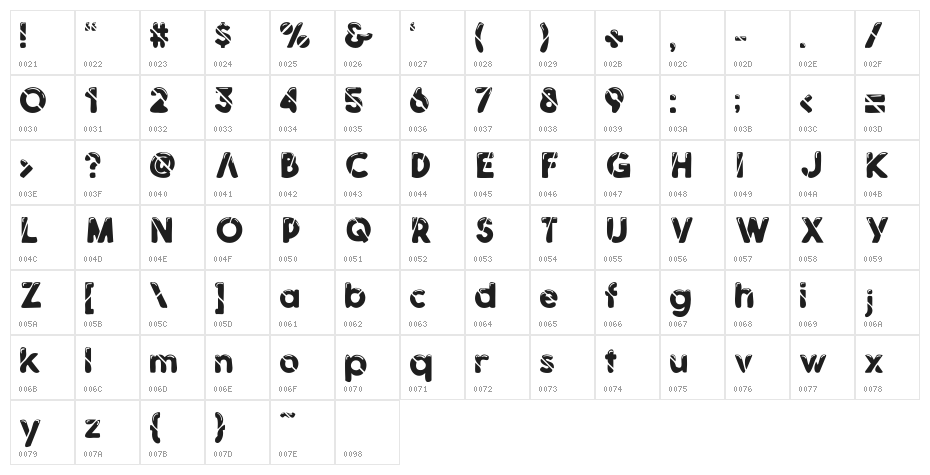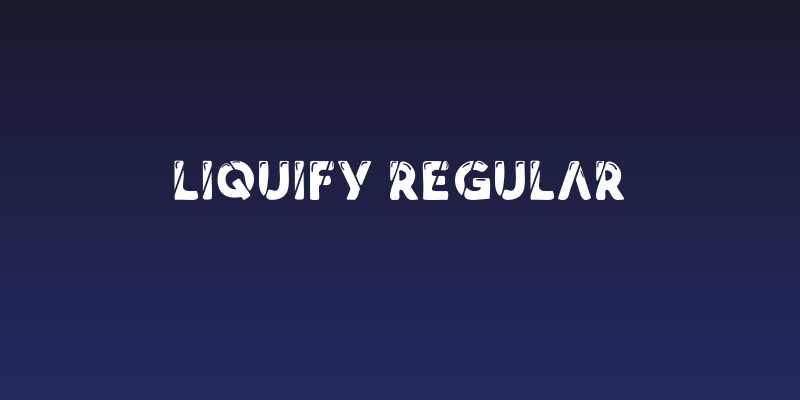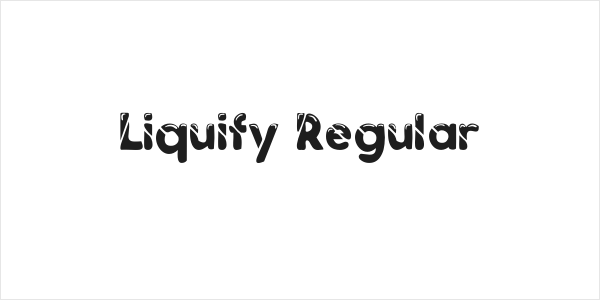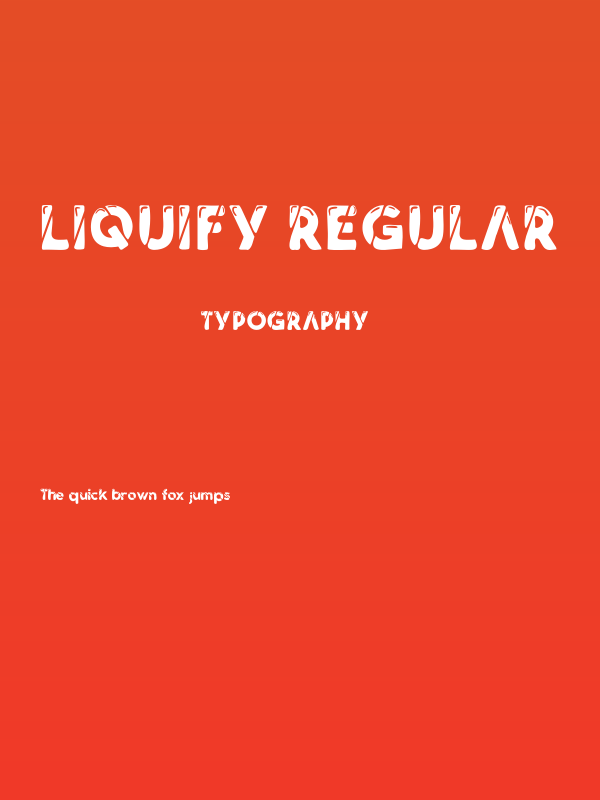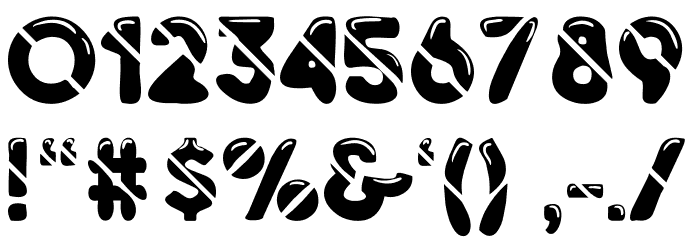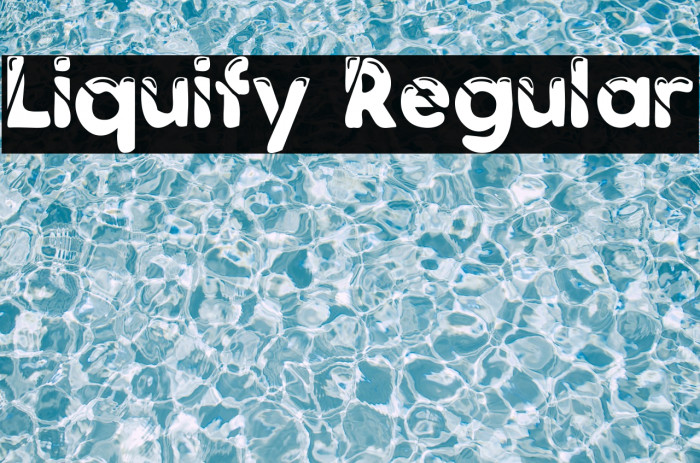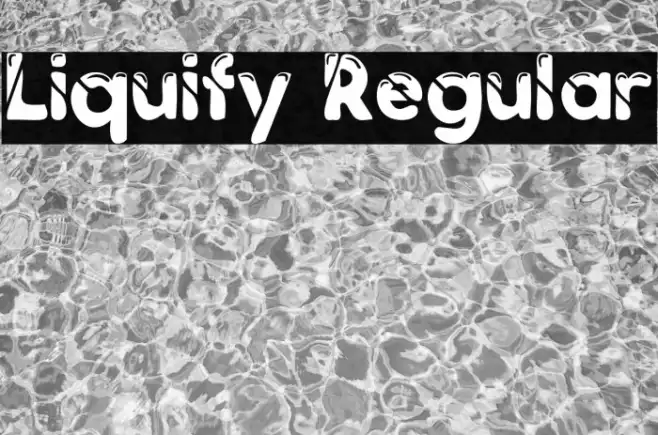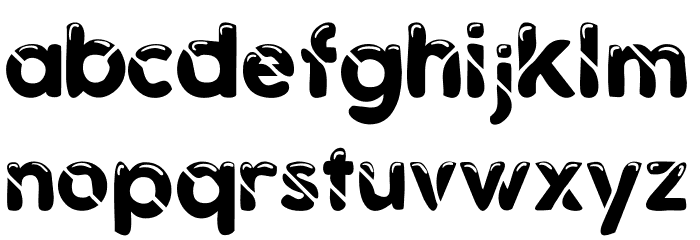
Liquify Regular Font
Liquify Regular Description
This font features a unique, fluid design with bold, rounded characters that appear as if they are melting or liquefying. The letters have a playful and dynamic appearance, with varying thicknesses and smooth curves that create a sense of movement. The style is highly decorative, making it stand out with its artistic flair. The characters are well-defined, with a consistent flow that maintains readability despite the unconventional design. This font is perfect for creative projects that require a distinctive and eye-catching typeface.
| Overall Style | Modern, Artistic |
| Proposed Projects | Ideal for posters, album covers, branding for creative industries, and any project needing a standout, artistic typeface. |